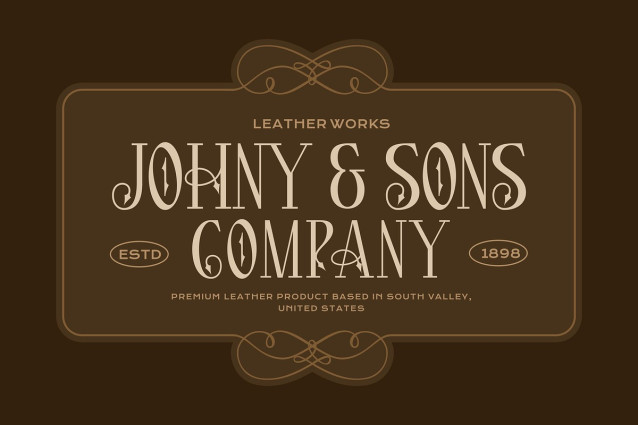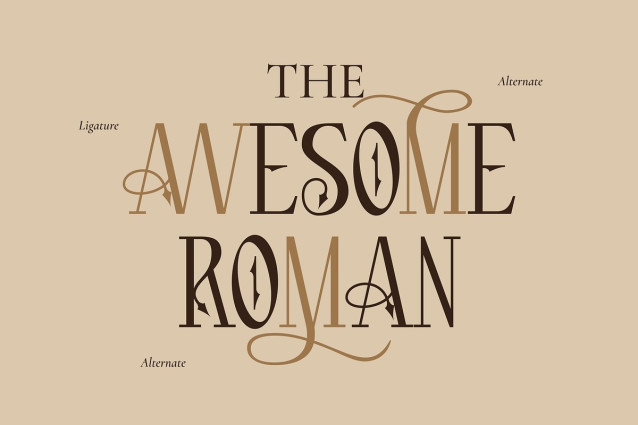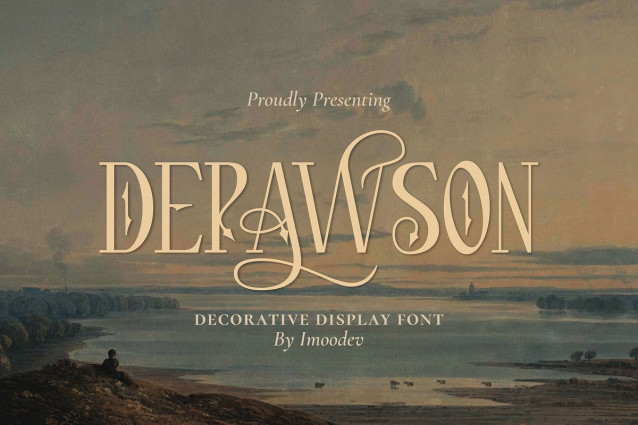
Depawson Font is a decorative roman style display typeface that screams “vintage luxury”, blends classical roman proportions with lush art nouveau flourishes, while also demanding you respect its curls and flourishes. Have sharp serifs and vertical elegance, making them look aristocratic but not too stiff.
What gives it personality are the ornamental swashes, ligatures, and alternates those swooping lines and dramatic extensions that turn ordinary characters into something that looks like it belongs on an antique leather goods sign, a 19th century playbill.
This font perfect for packaging, editorial headlines, invitations, vintage logos, boutique brands, classy cafés, artisanal goods, ornate signage, or cleopatra’s party invitations.